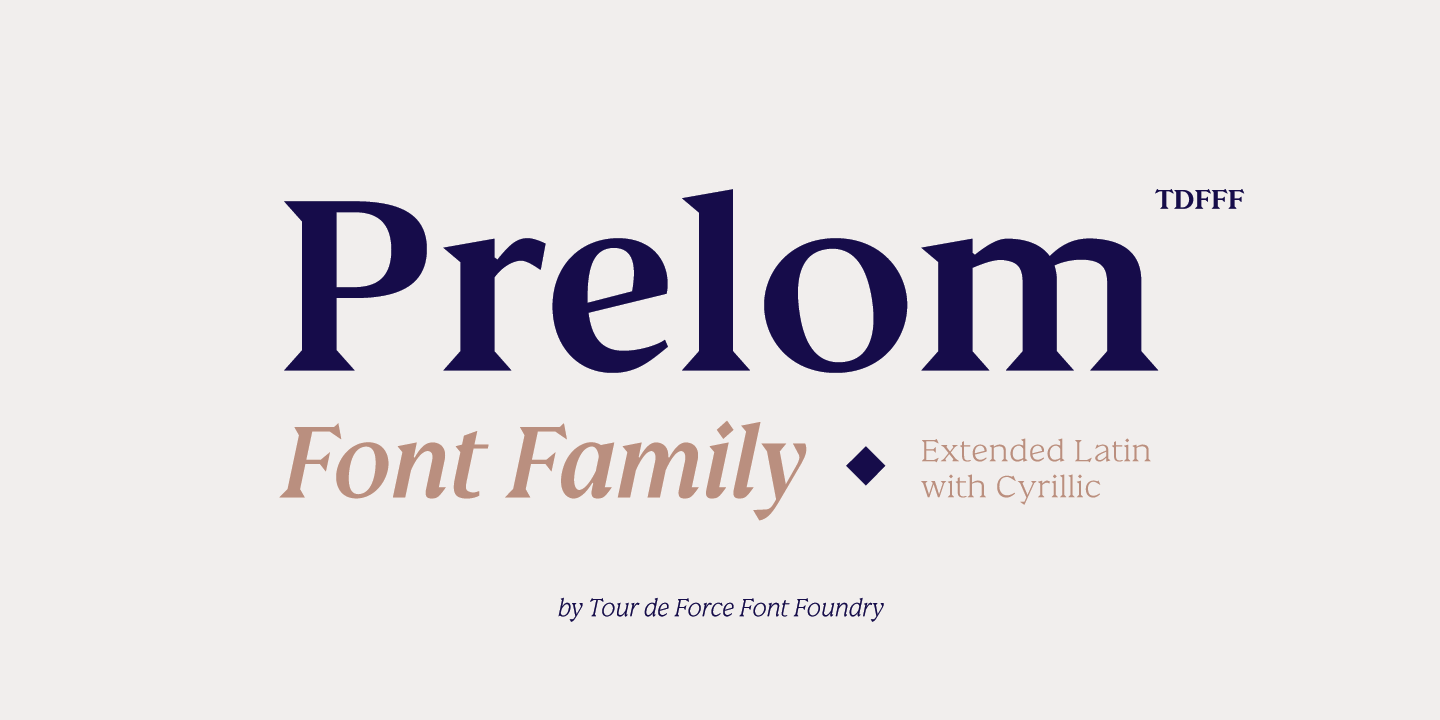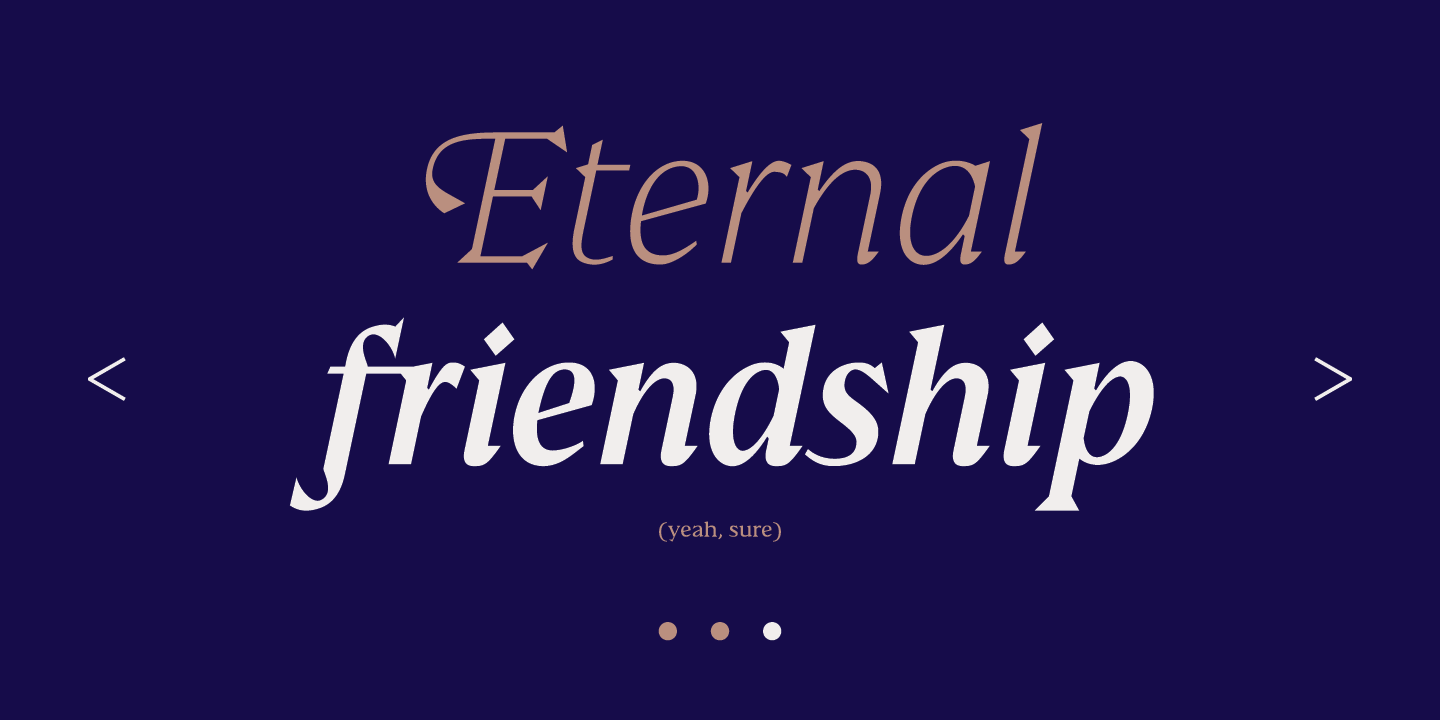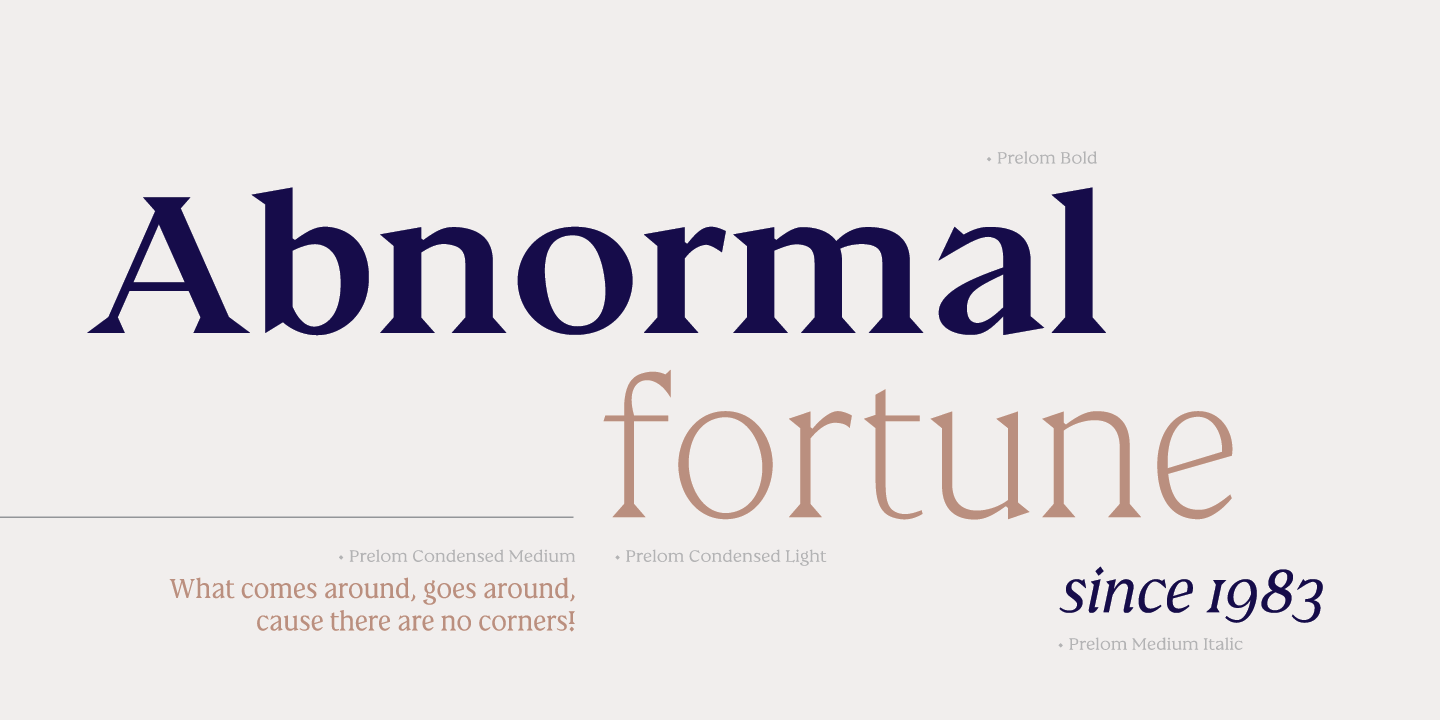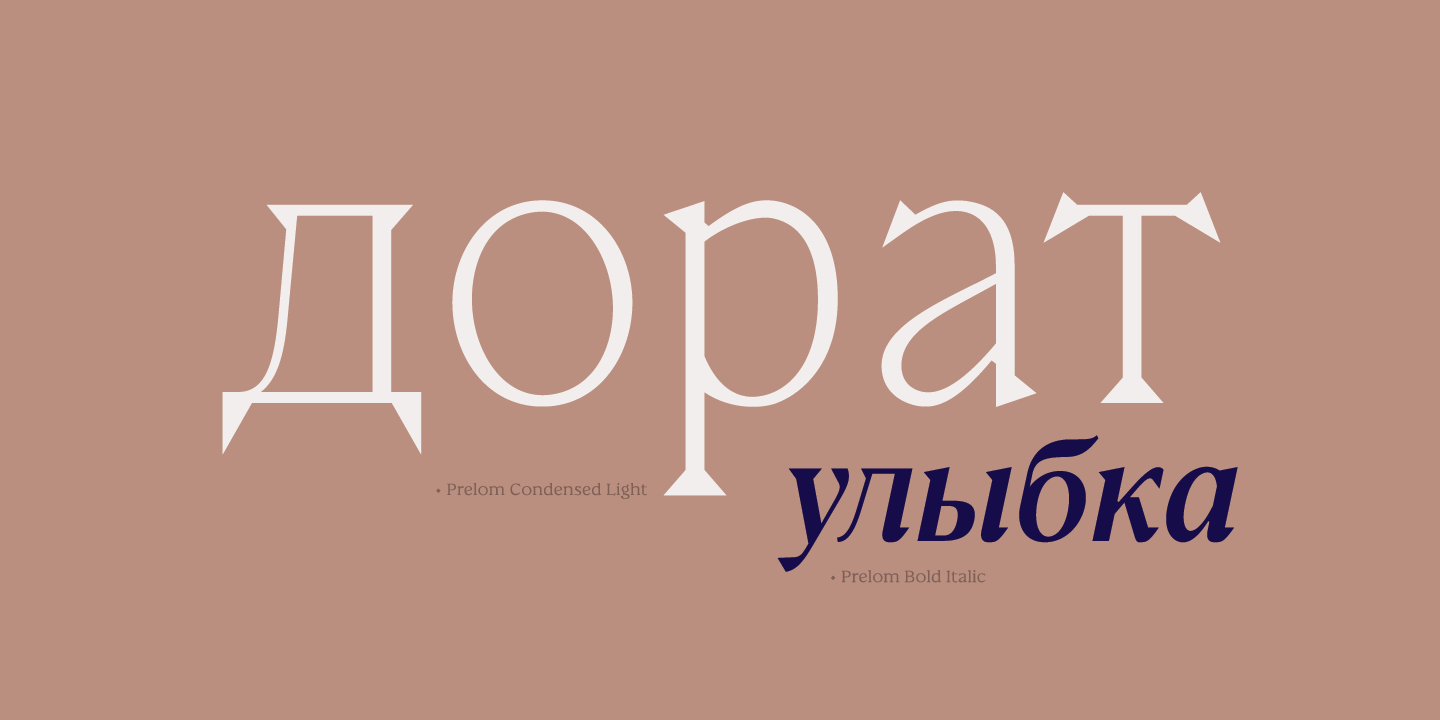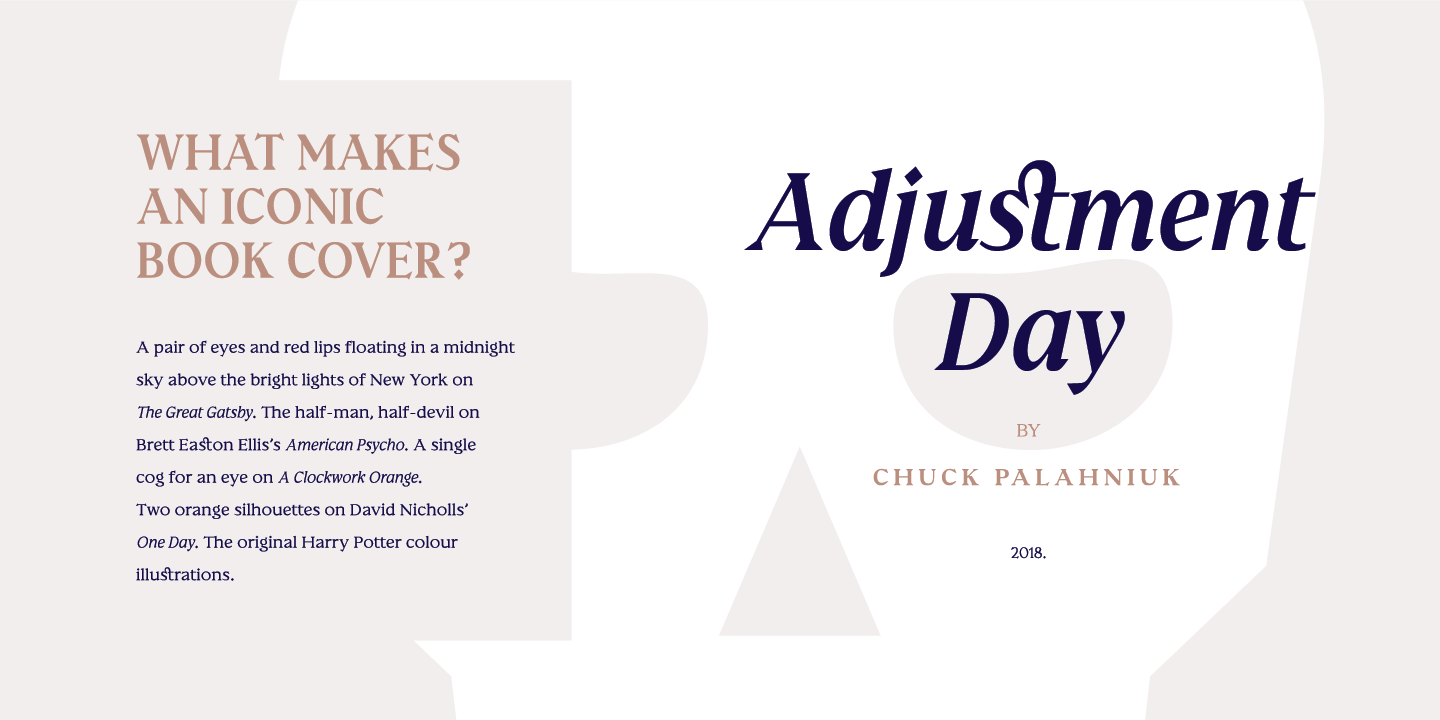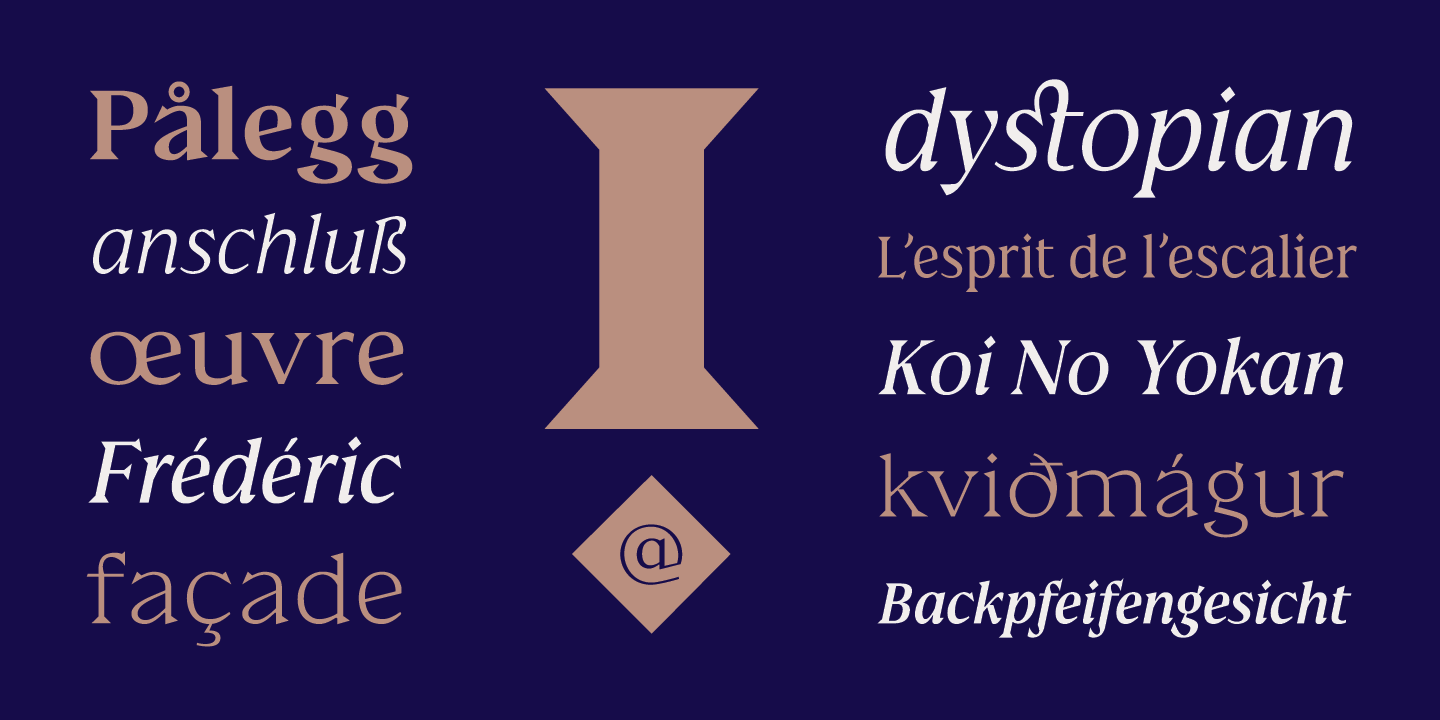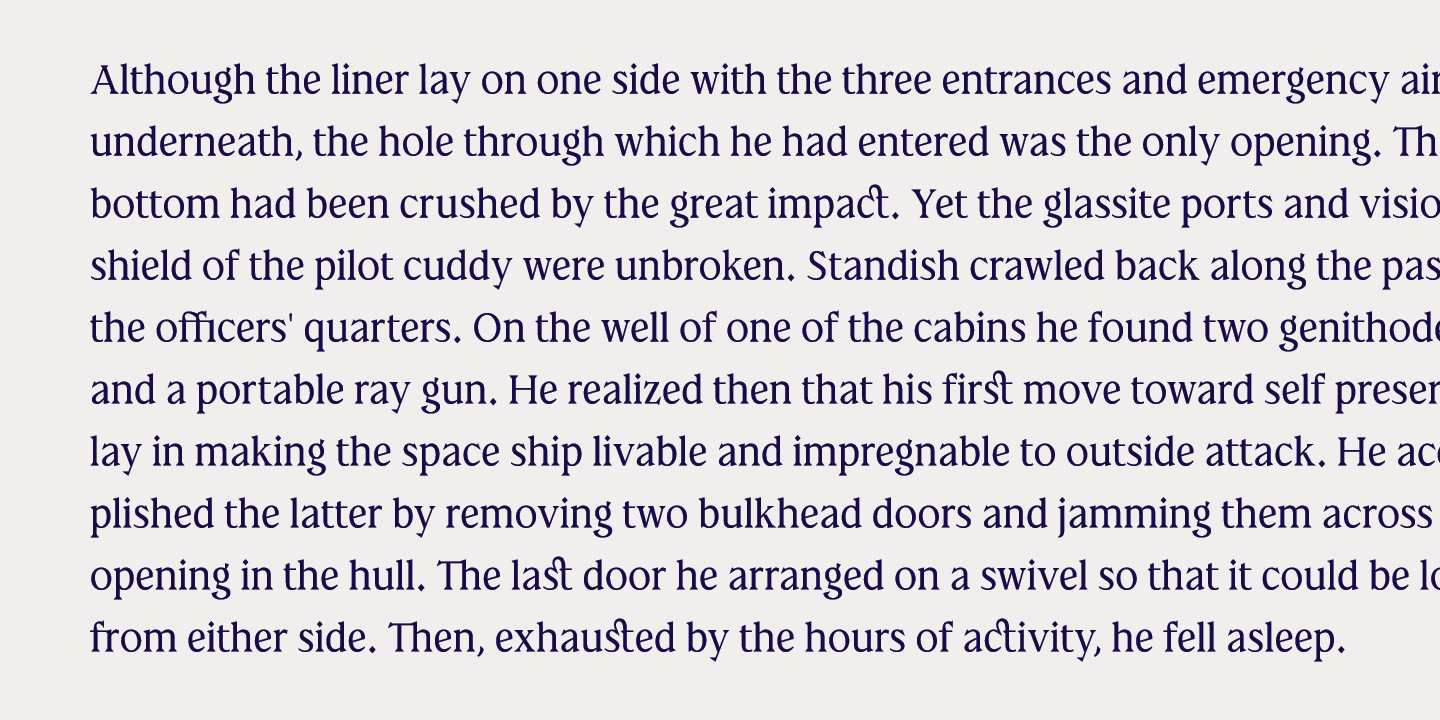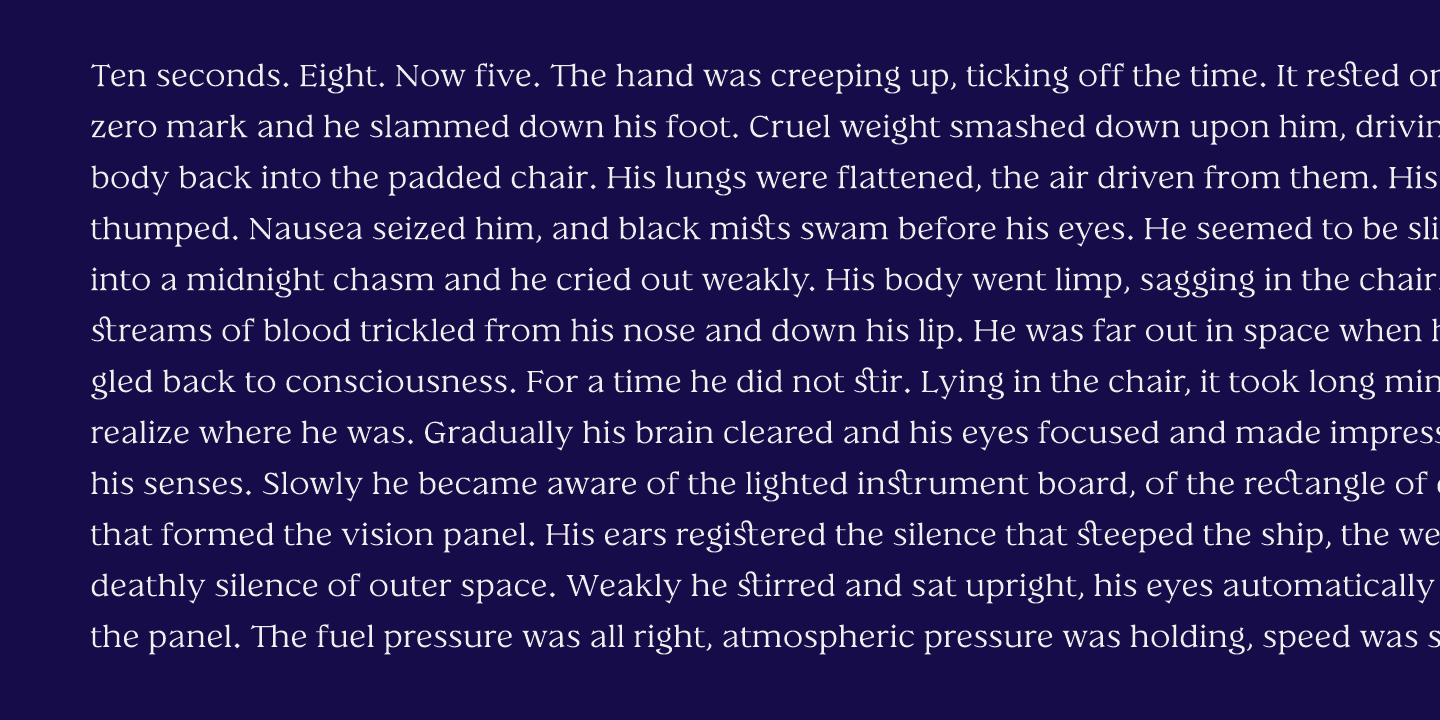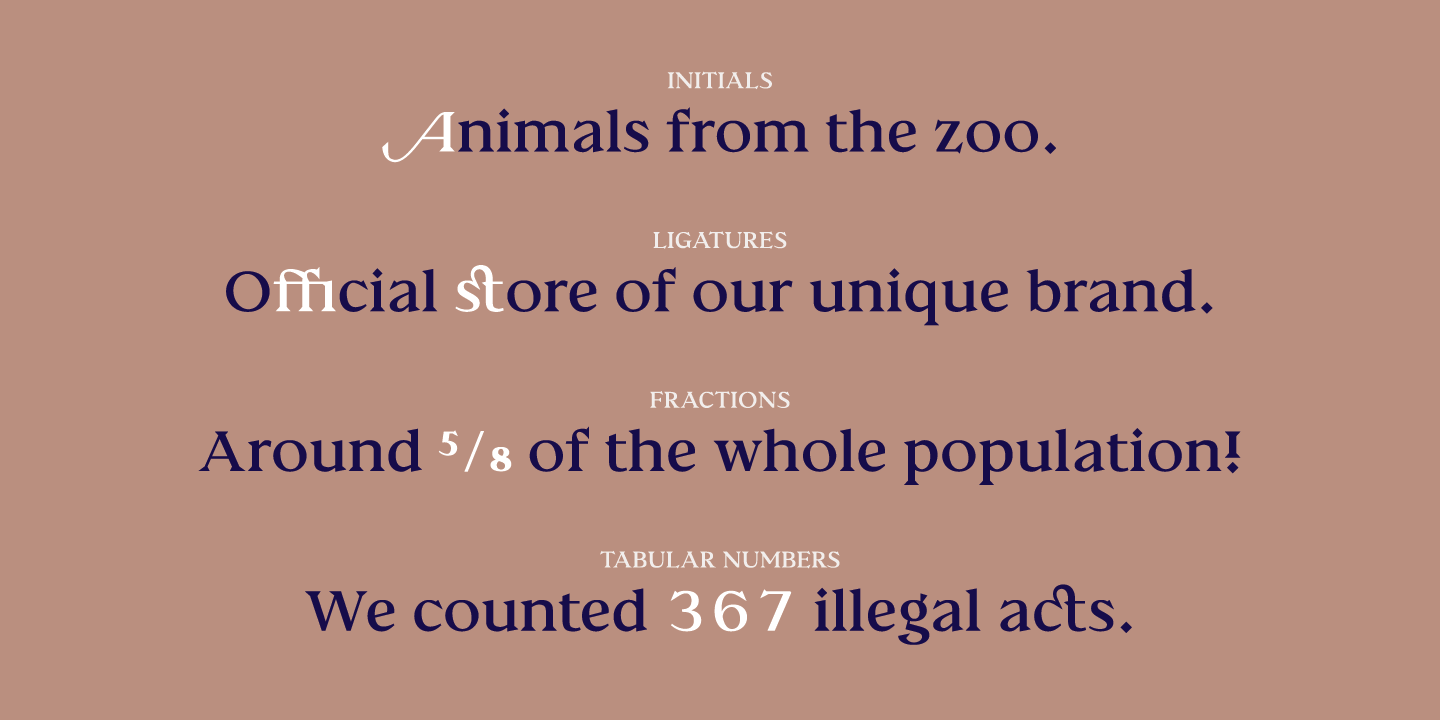
Prelom is modern serif family inspired by retro designed typefaces.
Comes in 5 Normal weights, 5 true Italics and 5 Condensed weights. With tall x-height, sharp serifs like fishing hooks, original Italics and distinctive character overall design, Prelom is ideal family for editorial use or branding. Beside extended Latin character set, Prelom contains Cyrillic characters as well.
It is equipped with Initials, Ligatures, Fractions and Tabular Numbers as OpenType features. Prelom – A5 Specimen